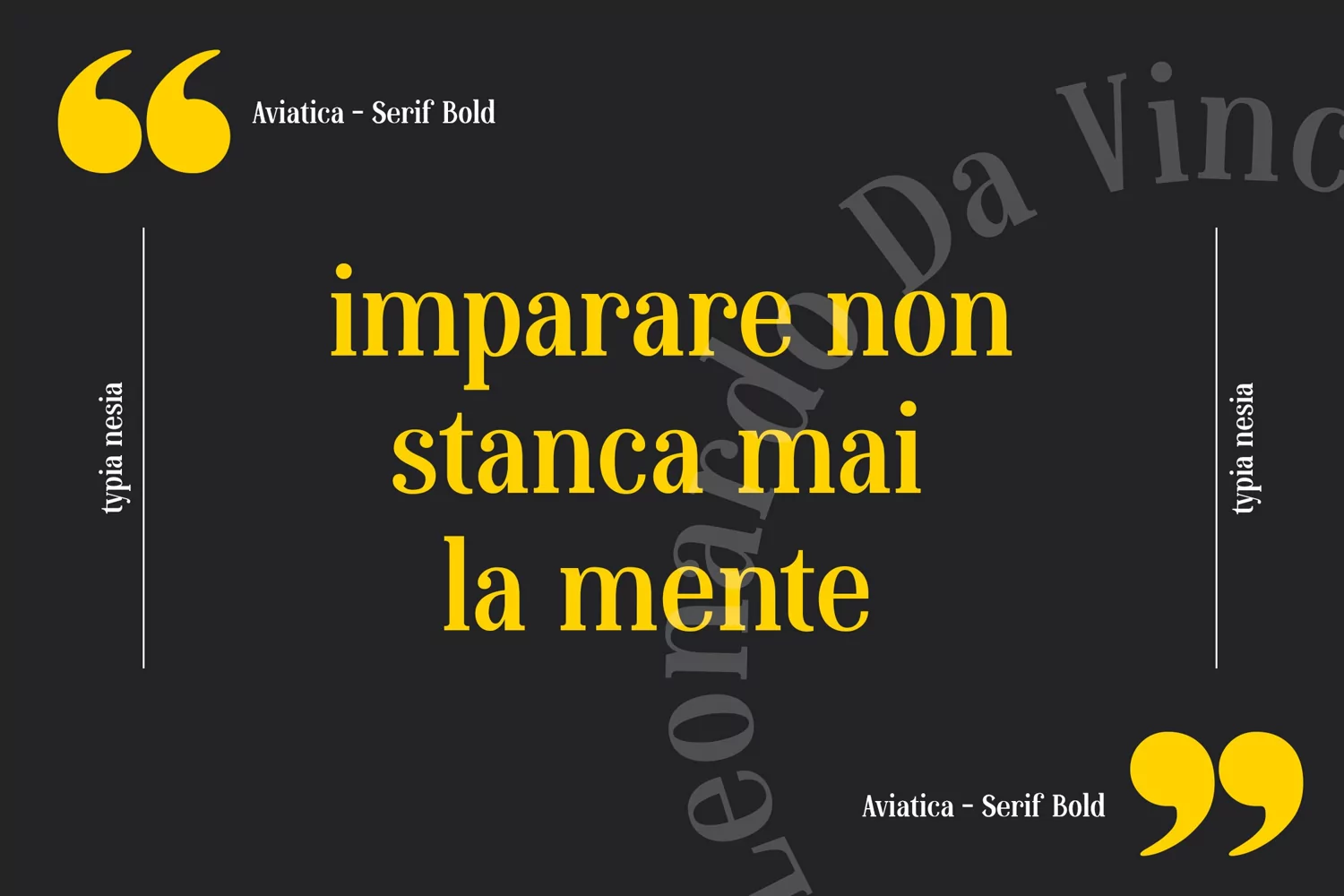
Hello, looking for a new classic serif font with classy and modern feels ?
Aviatica Classic Serif font is perfect for your up coming projects. Such as logo branding, editorial design, stationery design, blog design, modern advertising design, card invitation, art quote, home decor, book/cover title, special events ( wedding, birthday, etc ), and any more.
Aviatica